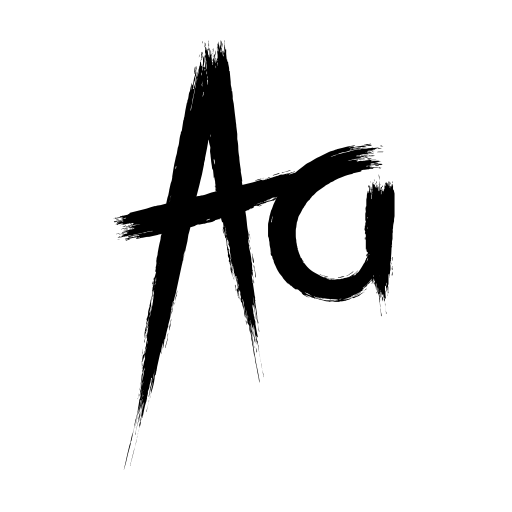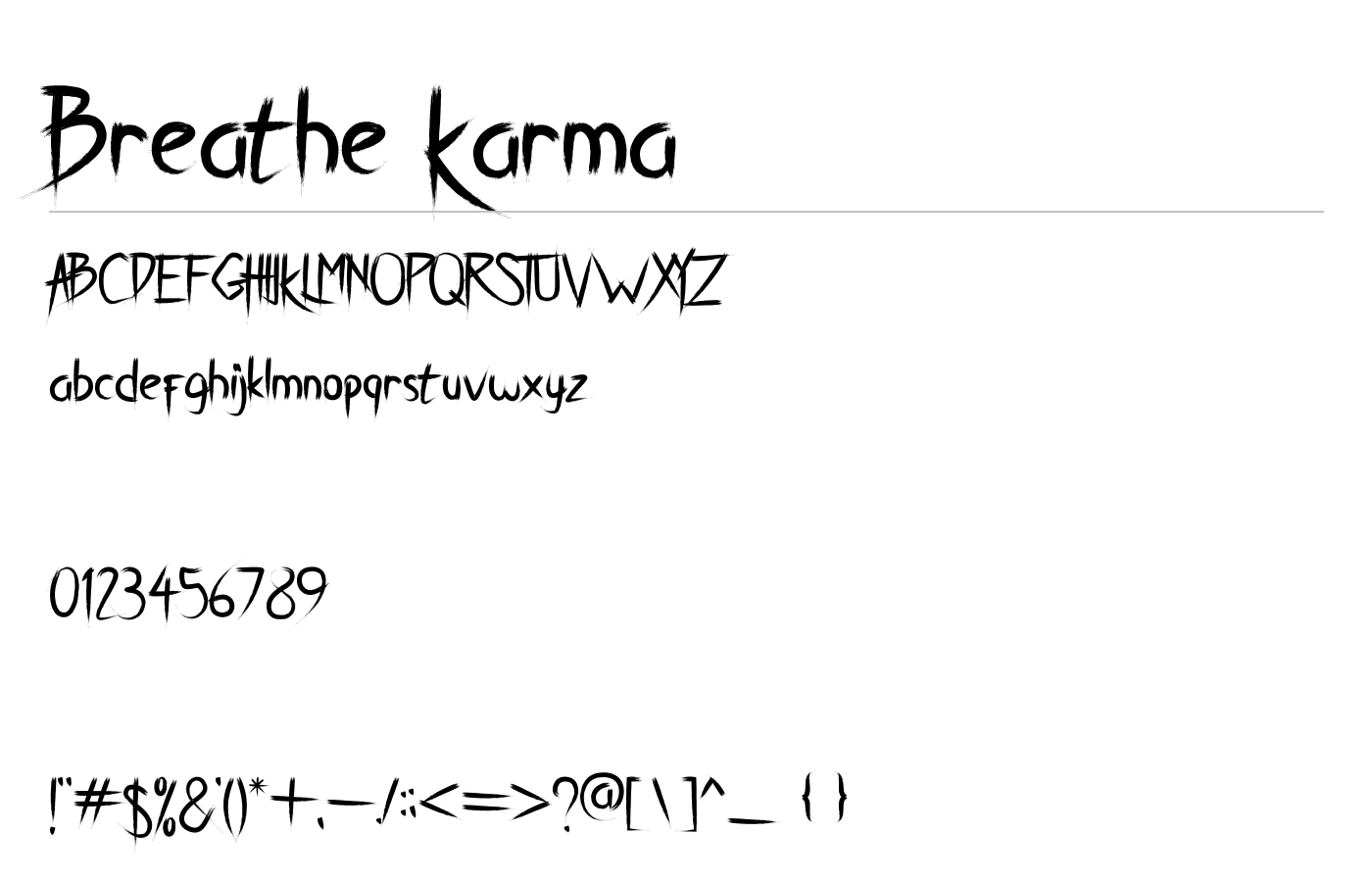
Breathe Karma is a unique sans serif font with a handwritten, brushstroke style that feels dynamic and edgy. Its tall, narrow letterforms with irregular, textured strokes give it an artistic, slightly chaotic vibe perfect for creative, bold branding or expressive headlines. This font works well for designs that want to stand out with a raw, energetic personality, especially in posters, logos, or alternative lifestyle projects.
Breathe Karma Font
About Breathe Karma Font